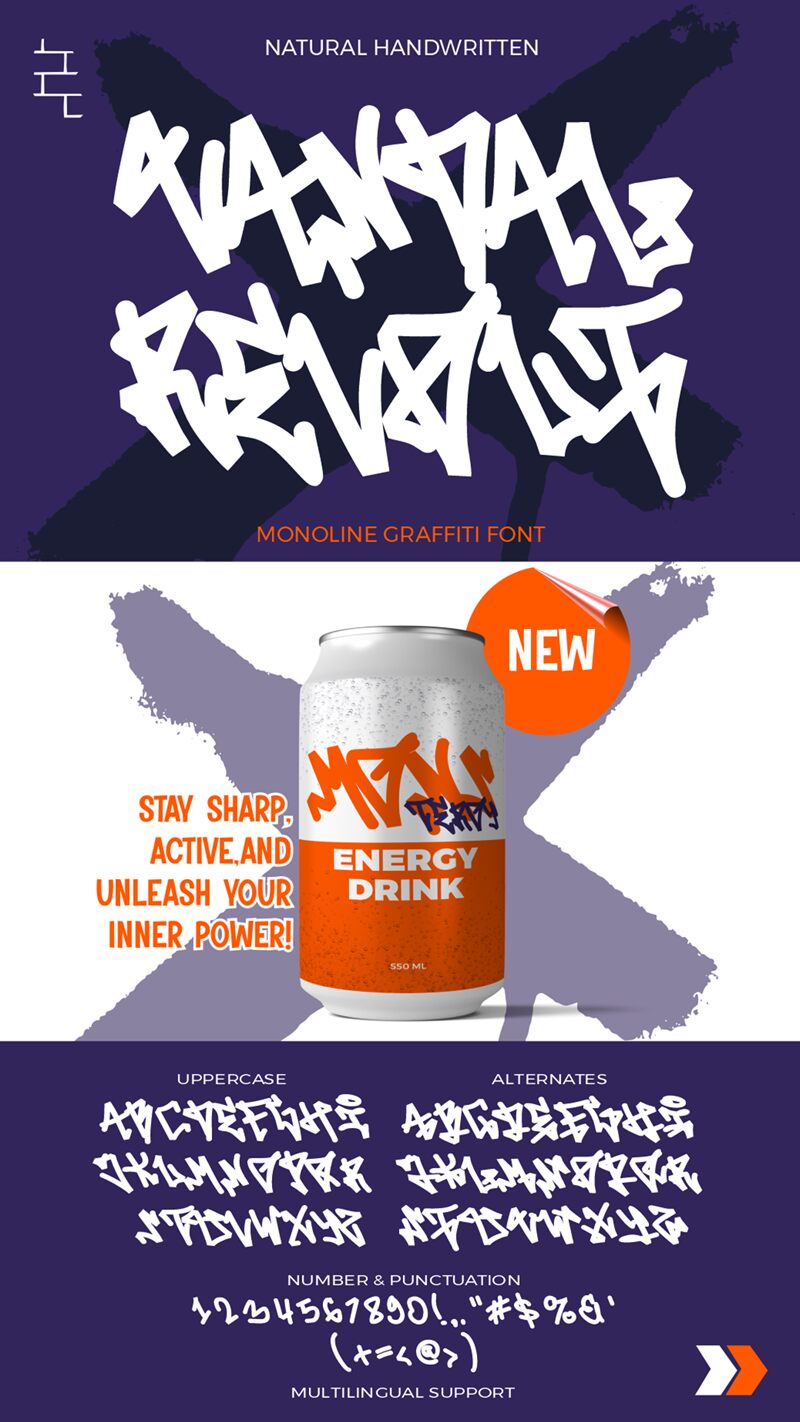
Vandal Revolt font by Cikareotype Studio is a free graffiti font designed to bring bold and expressive characters to any of your design projects. This is a hand-lettering typeface with letters that interlock for an authentic painted graffiti style. The unique contemporary letterforms allow a rebellious urban vibe that suits edgy and youthful designs.
Any design that requires an artistic or contemporary look like streetwear, fashion, magazine covers, comics, album covers, and other print designs would benefit from this free font. Its usage is also highly applicable for posters, advertising posts, signage, merchandise, packaging, and much more.